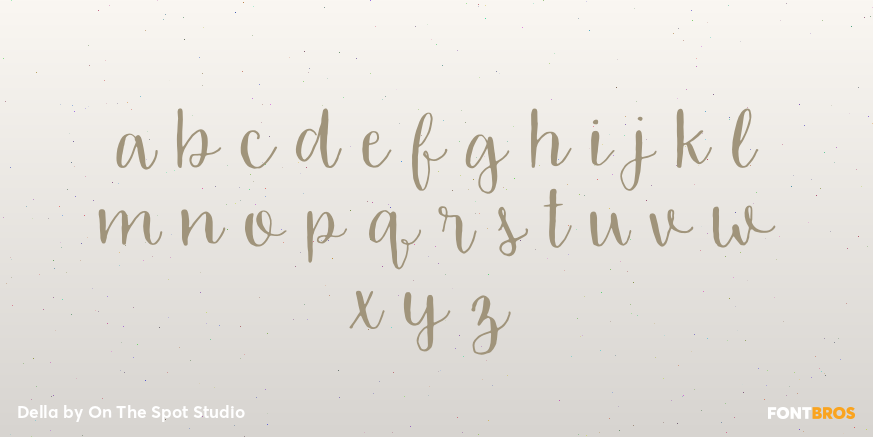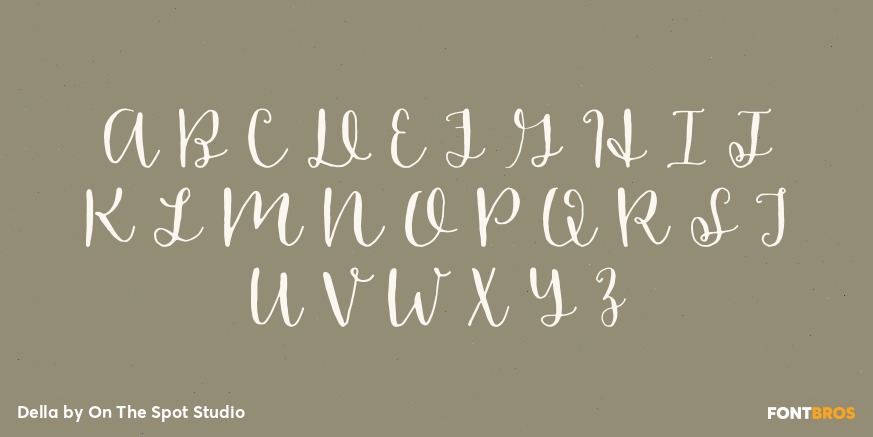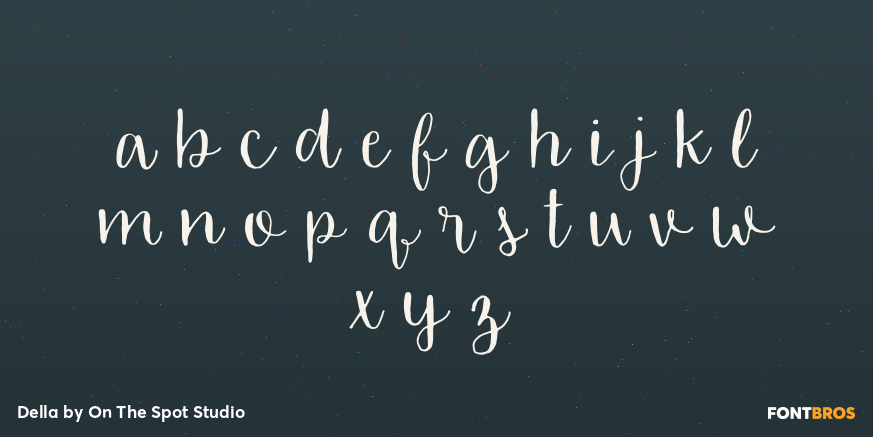
Della
Font Family by On The Spot Studio
Della is a handwritten script with a tall, narrow silhouette and a smooth, connected flow. Its mix of casual warmth and elegant movement gives it a modern calligraphy feel that reads as relaxed, playful, and polished at the same time.
With 1 font style in the family, this design is a natural fit for display work where personality matters. Use it for branding, packaging, invitations, social graphics, posters, and other decorative pieces that call for a flowing script with an informal, stylish presence.
Created by On The Spot Studio, Della brings together handwritten character and clean rhythm in a way that feels approachable rather than overly formal. It’s a strong choice when you want lettering that looks expressive, smooth, and contemporary.